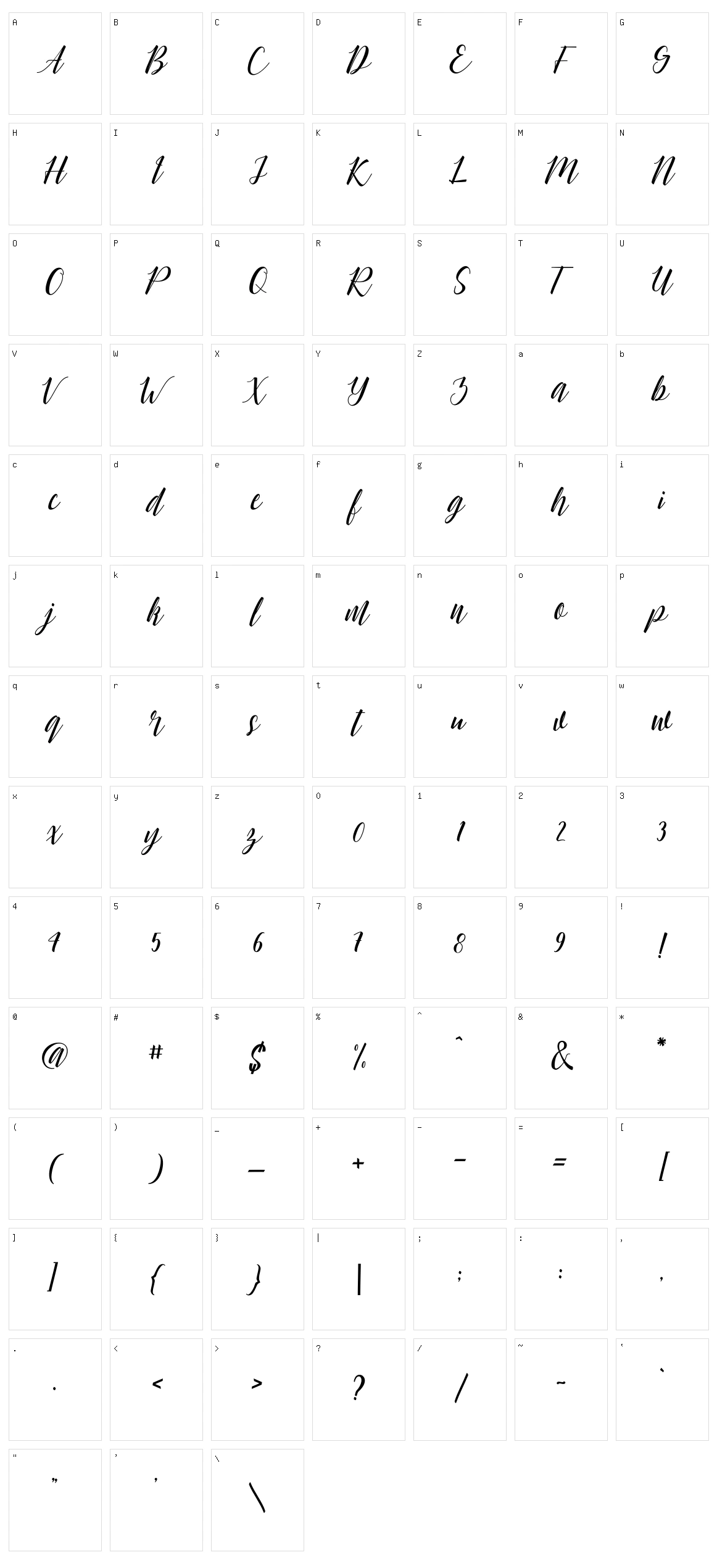
chillout
chillout Script is modern stylish copperplate calligraphy fonts, combines from copperplate to contemporary typeface with a dancing baseline, classic and elegant touch. Can be used for various purposes.such as headings, signature, logos, wedding invitation, t-shirt, letterhead, signage, table, news, posters, badges etc.